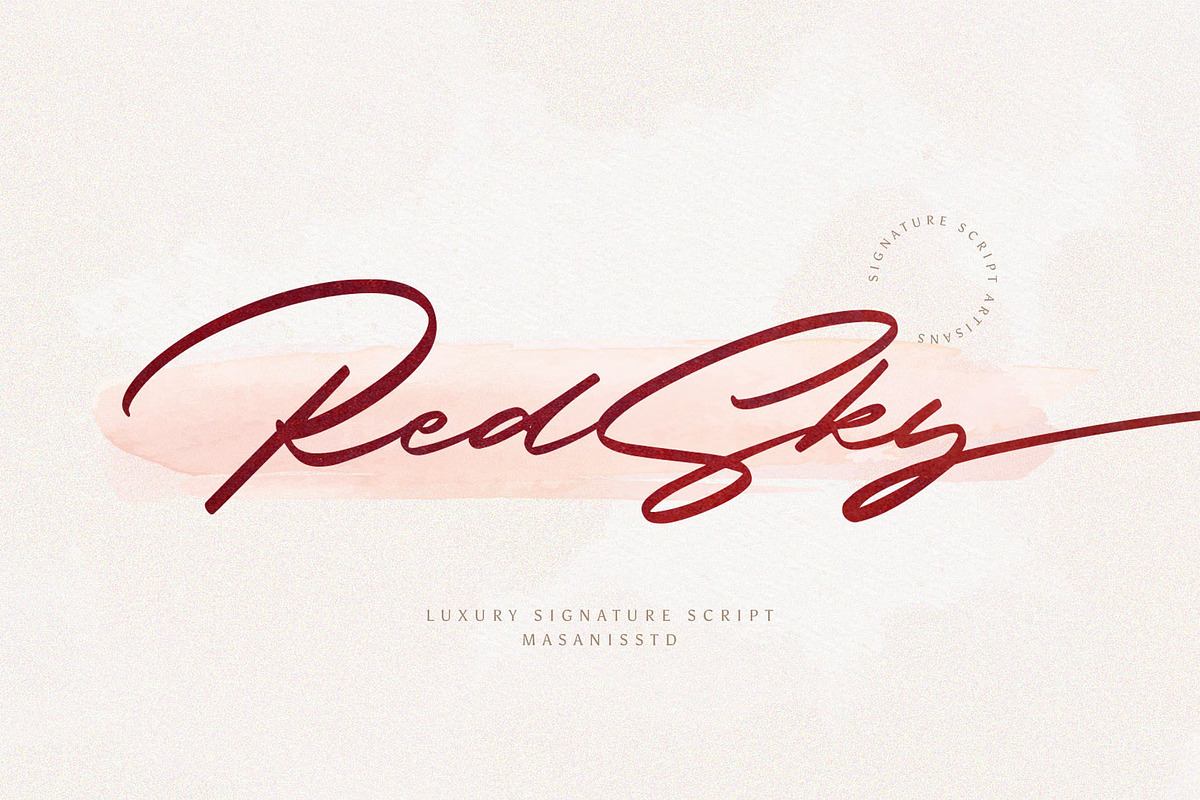
RedSky - Luxurious Signature Font Free Download is an elegant and flowing handwritten typeface designed to mimic the style of a high-end personal signature. With its smooth curves, graceful strokes, and premium feel, RedSky is perfect for fashion branding, wedding invitations, photography watermarks, and luxury logo designs.
RedSky - Luxurious Signature Font Free Download adds sophistication and authenticity to any project, blending minimalism with upscale charm. Whether you're crafting a stylish monogram or a personal brand identity, this font delivers refinement in every stroke. Download it today and elevate your typography with the signature elegance of RedSky.